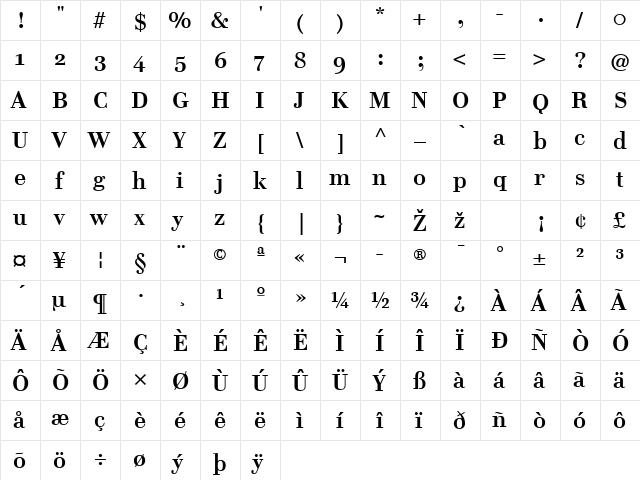
Cellini-Bold Regular
| Designer | Albert Boton |
Design Context for Cellini-Bold Typeface
Cellini-Bold is a composed and adaptable typeface that performs quietly and consistently across a wide range of design contexts. Its bold stroke weight gives it real presence on the page.